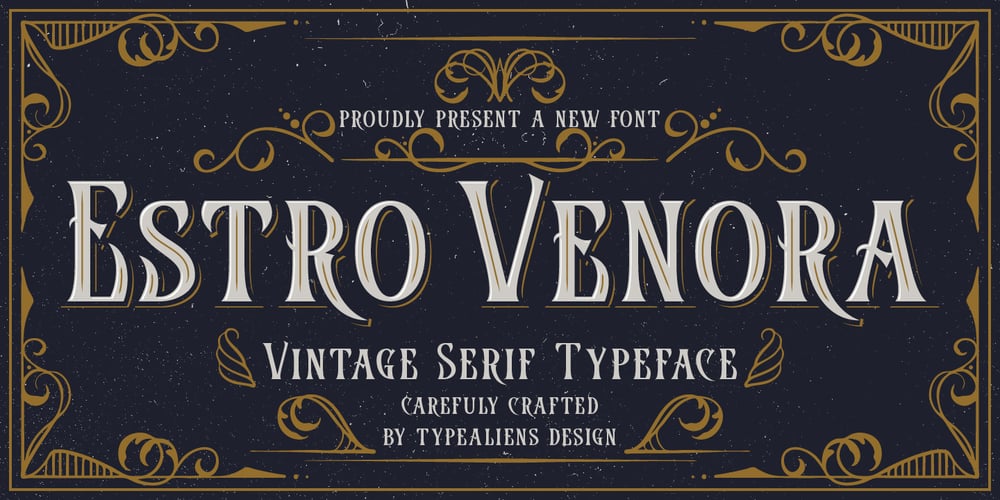
Estro Venora Font Family was designed by Ilham Wahyu and published by Ilhamtaro. Estro Venora contains 1 styles and family package options. ESTRO VENORA is a serif font with a vintage style of Victorian influence. A classic font that matches the vintage layout design combined with abstract leaf or floral ornaments.This font is an all caps font, with a letter height difference between the uppercase and lowercase. It is suitable for vintage logo designs such as liquor logos and label designs.To enable the OpenType Stylistic alternates, you need a program that supports OpenType features such as Adobe Illustrator CS, Adobe Indesign & CorelDraw X6-X7.Cheers!